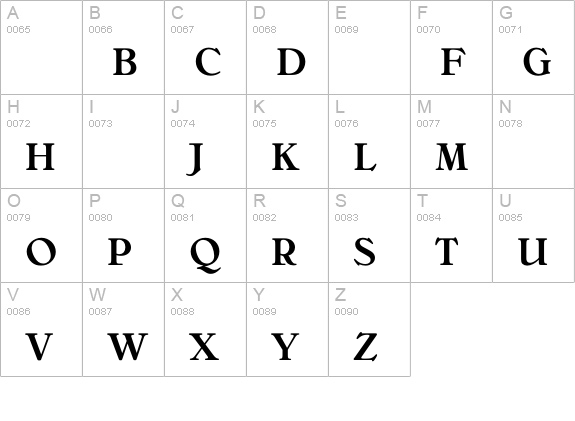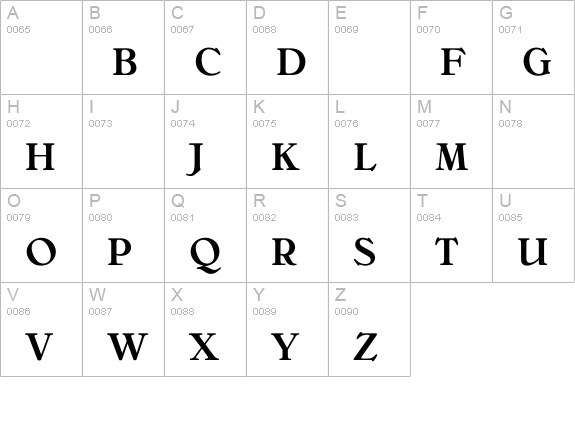
BelliniMedium Font Details
BelliniMedium font is a beautiful and elegant typeface that exudes sophistication and style. With its sleek lines and graceful curves, this font is perfect for adding a touch of class to any design project. Its versatility makes it suitable for a wide range of applications, from branding and advertising to invitations and packaging. The best part is that BelliniMedium font is available for free download at FontsMarket.com. Now you can enhance your projects with this exquisite font without any cost. Don't miss out on the opportunity to elevate your designs with the timeless appeal of BelliniMedium font. Download it today and let your creativity shine!